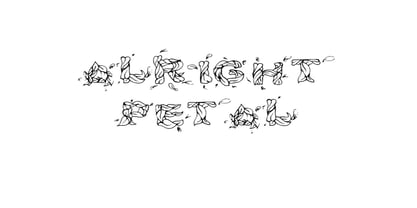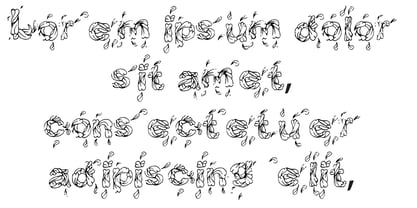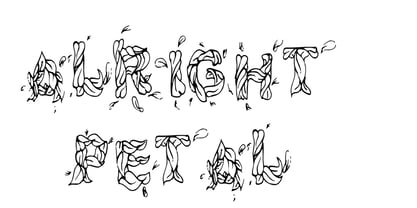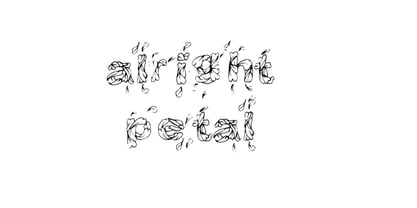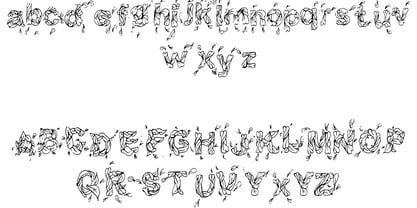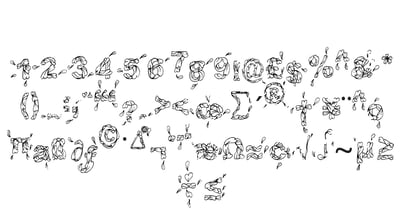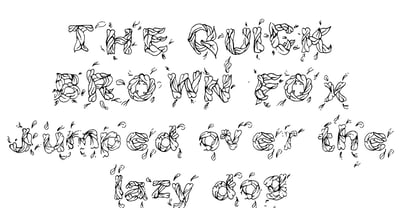
Alrightpetal
by Jointype
The Alrightpetal Font Family was designed by Jeremy Gill-Praba and published by Jointype. Alrightpetal contains 1 styles. More about this family
Bring the delicate drama of gently falling flower petals into your designs. This elegant and expressive font duo captures the soft motion, timeless beauty, and romantic feel of petals caught in a breeze—perfect for premium invitations, seasonal branding, wedding stationery, feminine packaging, and more. The “petal fall” aesthetic gives movement and life to static type—so the letters don’t just say something, they feelsomething. The pairing of a decorative version + a more grounded version gives you flexibility: headline in the decorative style, body or sub-heading in the core style. Since it supports web and desktop formats, you can maintain brand consistency across mediums. Because the design is evocative (petals, drift, softness), it helps brand communications whisper emotion rather than shout it—so it’s subtle and refined.
Designers: Jeremy Gill-Praba
Foundry: Jointype